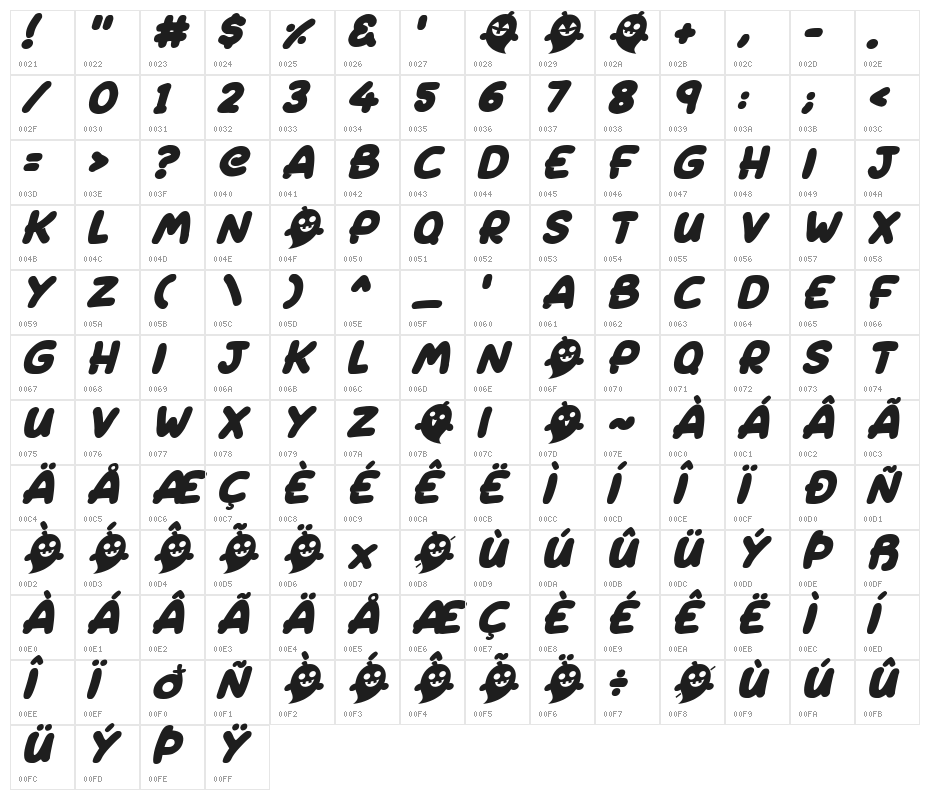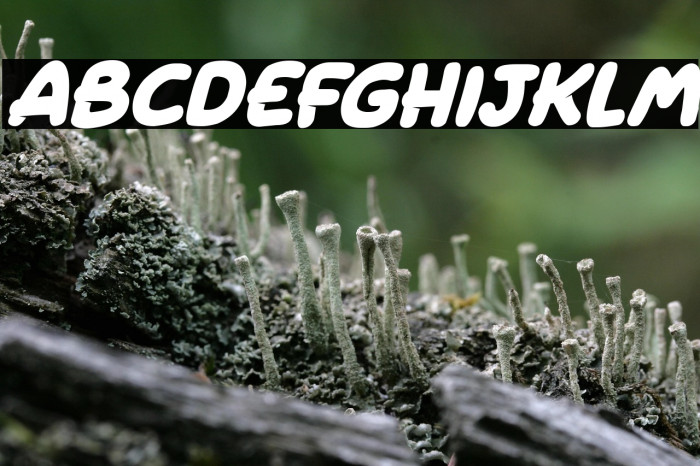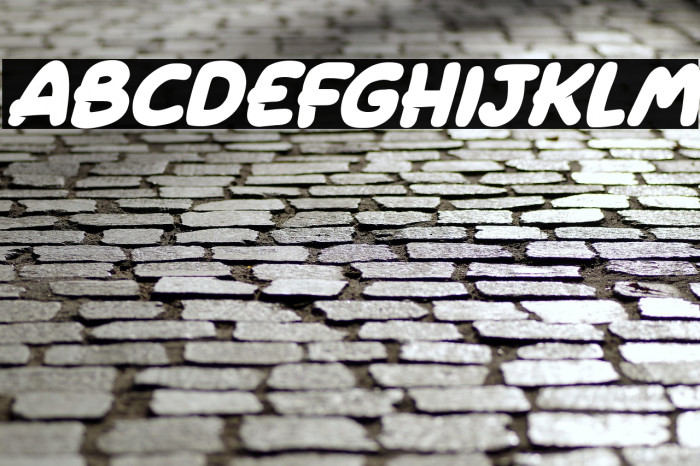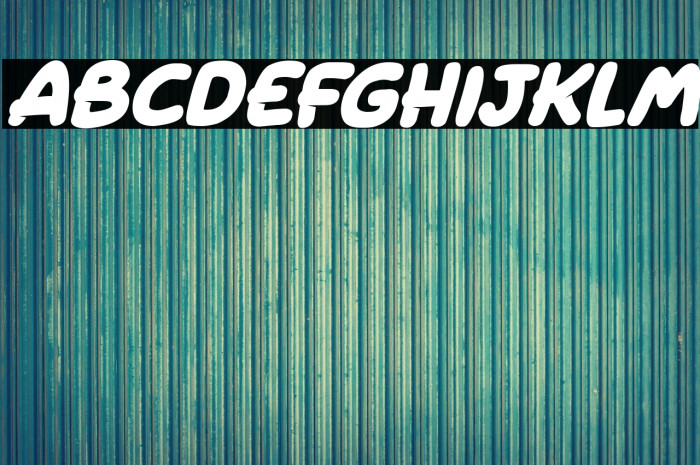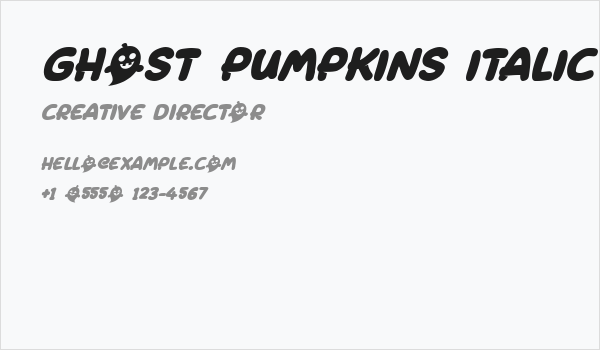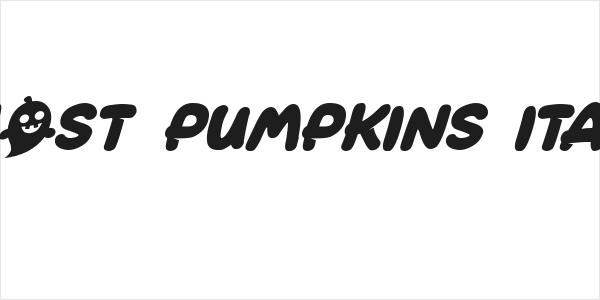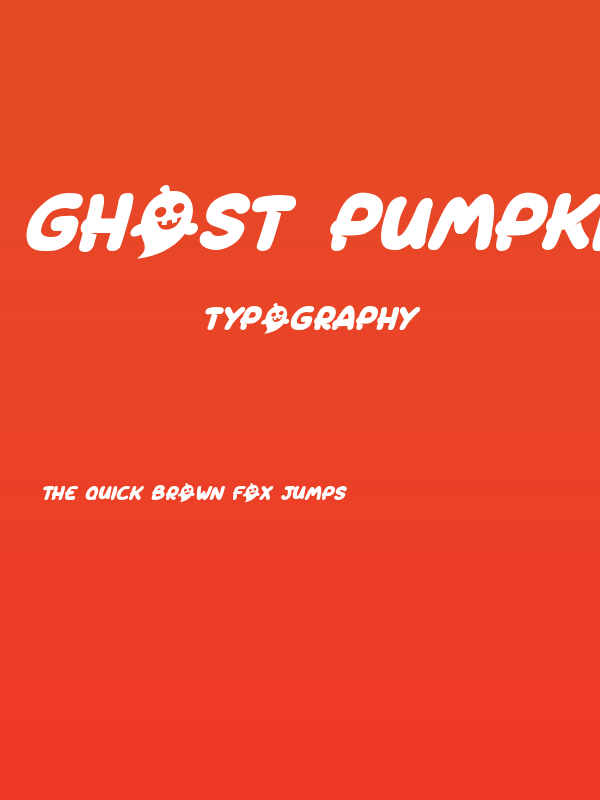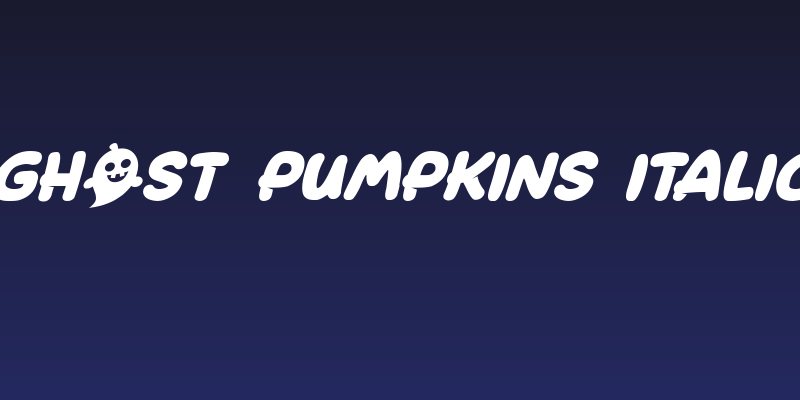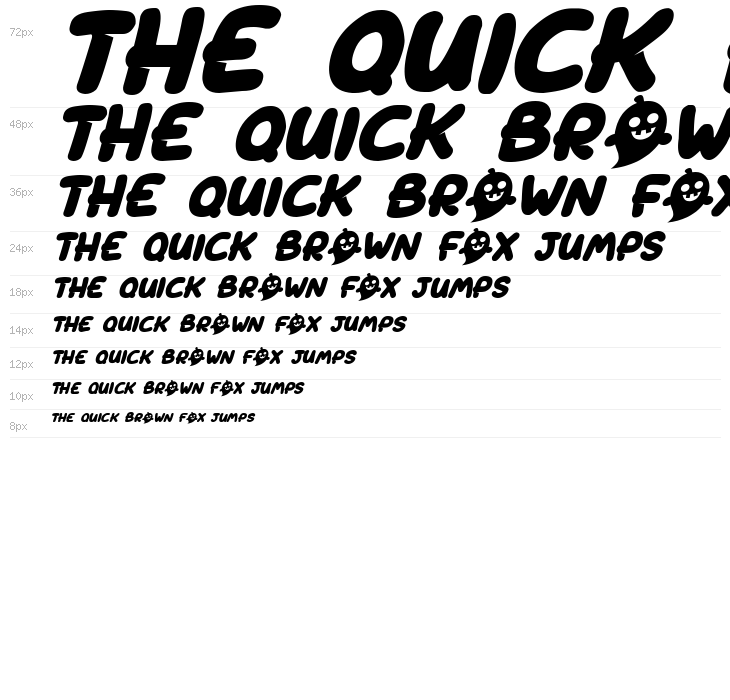
Ghost Pumpkins Italic Font
Ghost Pumpkins Italic Description
This playful and whimsical font features bold, rounded characters with a unique twist. Each letter is infused with a sense of fun and creativity, incorporating ghostly elements that add a Halloween-themed flair. The characters are slightly italicized, enhancing the dynamic and lively appearance. The font is perfect for capturing attention with its bold strokes and distinctive style, making it ideal for festive and themed projects.
| Proposed Projects | Ideal for Halloween-themed posters, party invitations, children's books, and festive branding. |